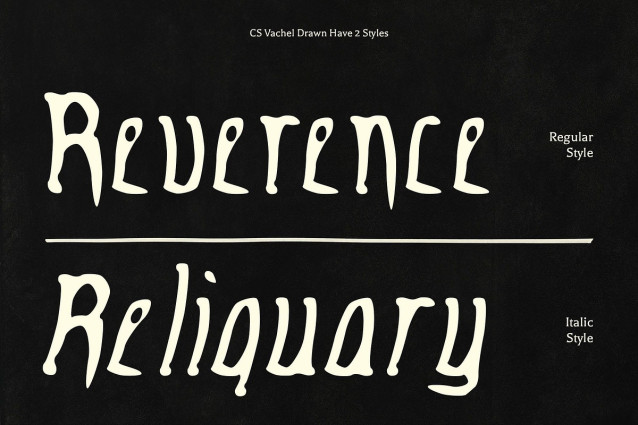
CS Vachel Drawn Font
CS Vachel Drawn Font – This is a modern gothic-style display font that reinterprets the ornate and dramatic spirit of traditional Gothic lettering. Its bold, structured letterforms retain the historical flair of medieval design but are reimagined through a simplified, contemporary lens, resulting in a font that feels both timeless and current.
Hand-Drawn Texture for Raw Sophistication What sets Vachel apart is its drawn effect—a subtle, organic texture that mimics hand-drawn ink work, giving each character a rough, expressive, and artisanal look. This handcrafted finish softens the gothic rigidity and injects human warmth and visual intrigue into the composition.
Balanced Contrast for High Impact The font balances sharp gothic edges with the fluidity of manual sketching, creating a visual tone that is both commanding and creative. This combination offers the perfect mood for designs that aim to be striking, moody, and layered with depth.
Ideal for Bold and Artistic Visuals From music posters to editorial layouts, alternative fashion branding, and dark-themed artworks, this classic font delivers a mysterious, elegant, and edgy presence. It’s the ideal choice for projects that want to embrace classic drama with a modern, handcrafted soul.